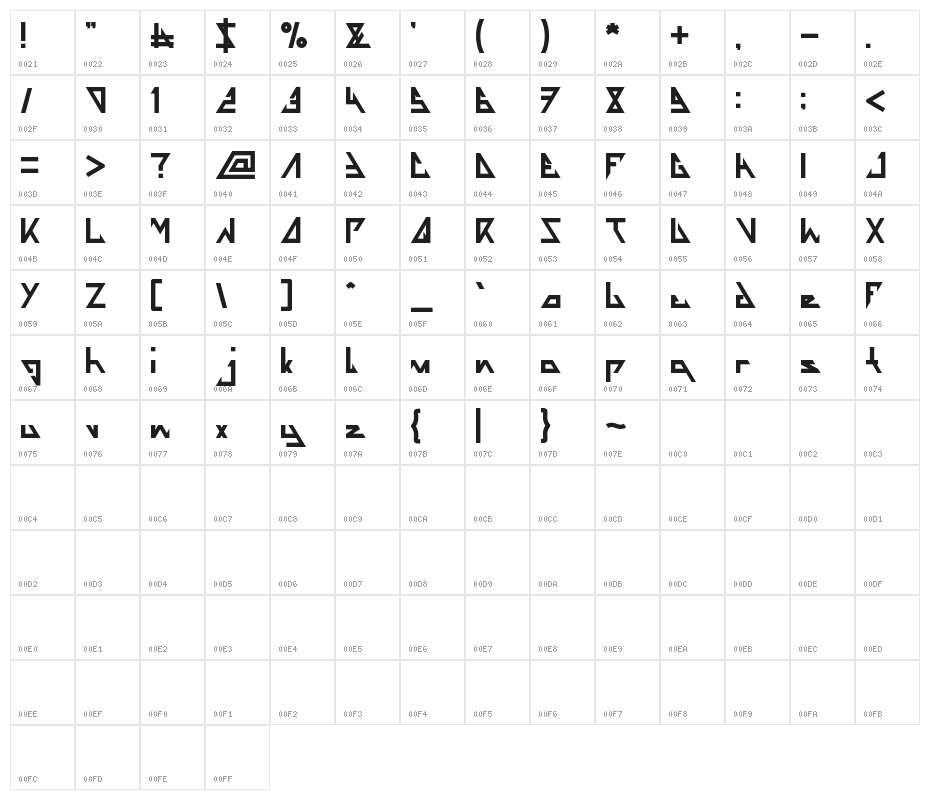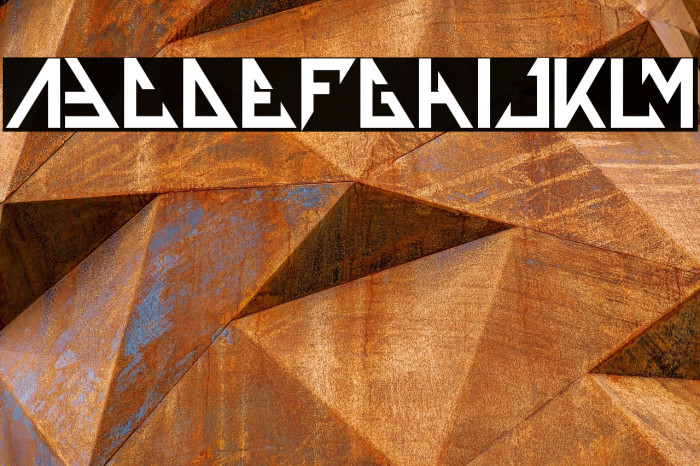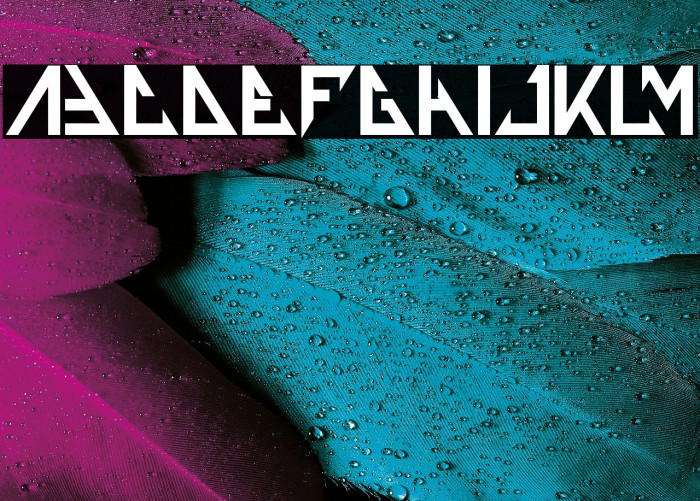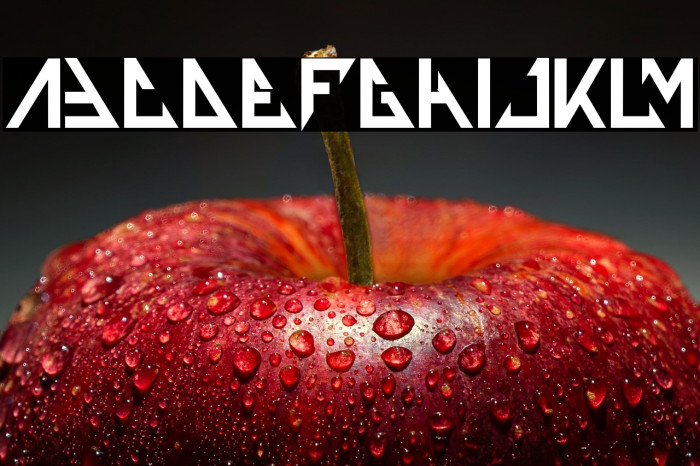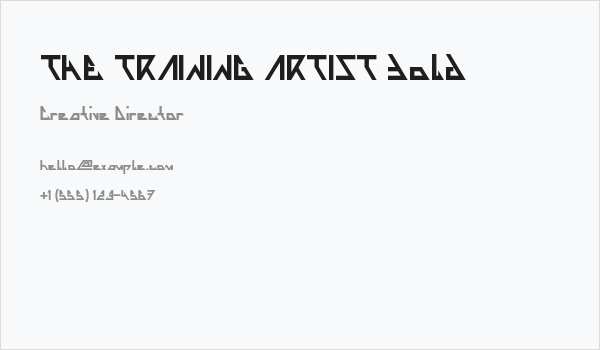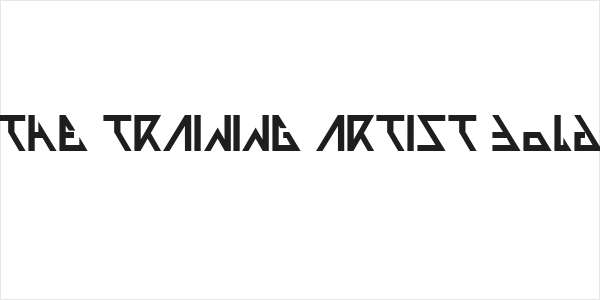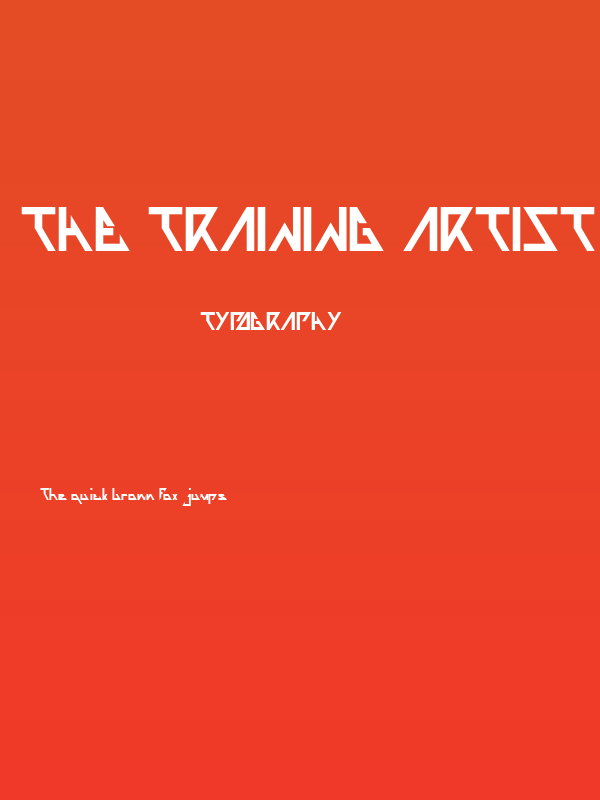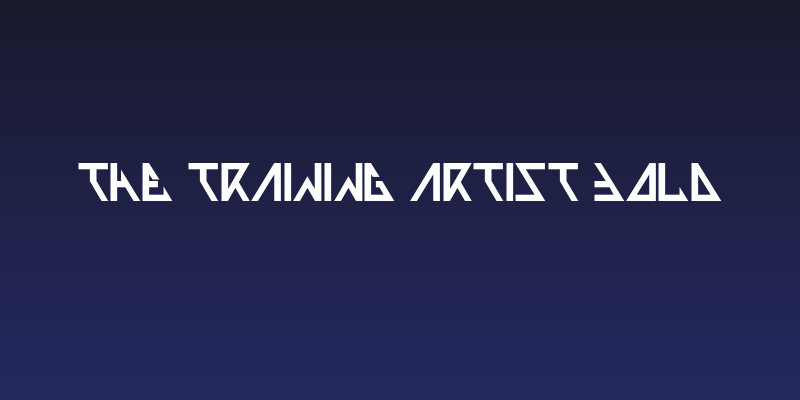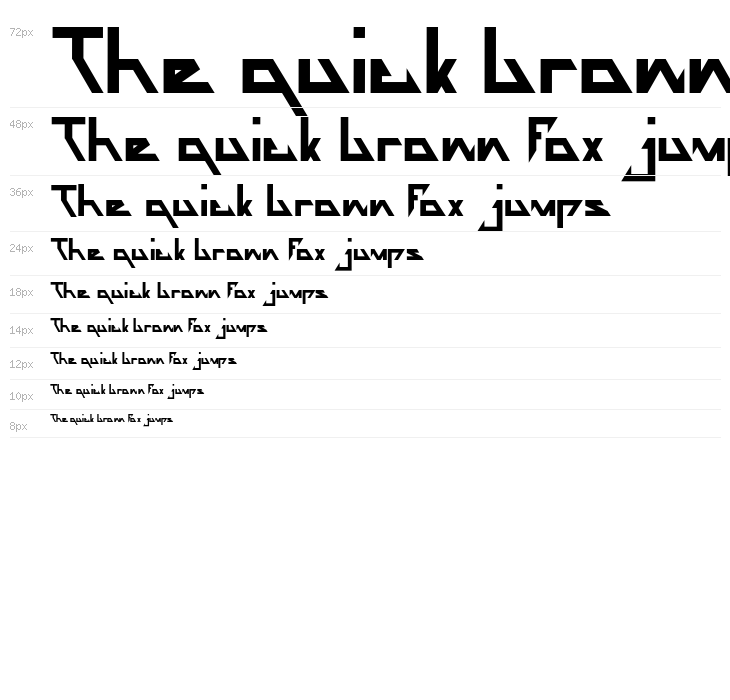
THE TRAINING ARTIST Bold Font
THE TRAINING ARTIST Bold Description
This font features a bold, geometric design with sharp angles and a futuristic aesthetic. The characters are constructed with a series of straight lines and acute angles, giving them a dynamic and edgy appearance. The uppercase and lowercase letters maintain a consistent style, with the lowercase being slightly more compact. Numbers and special characters follow the same angular theme, ensuring uniformity across the font. The overall look is striking and modern, making it suitable for attention-grabbing designs.
| Proposed Projects | Ideal for sci-fi themed projects, video game titles, posters, and branding that requires a modern and edgy look. |